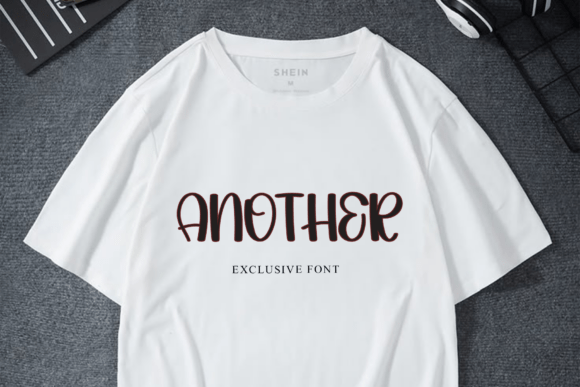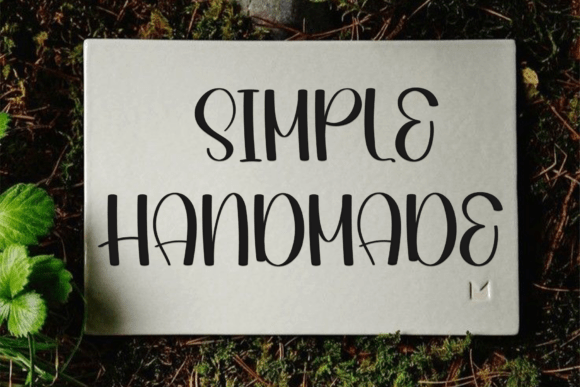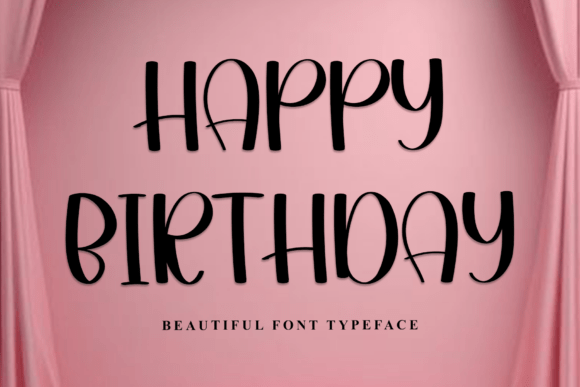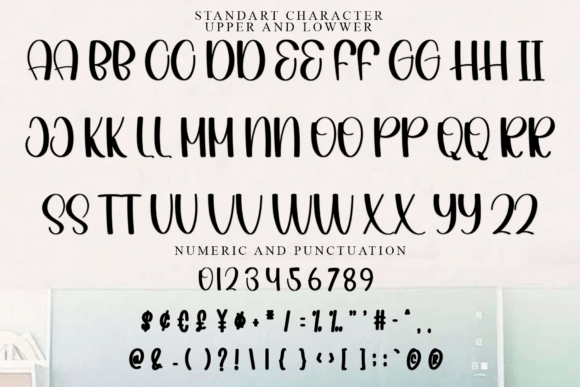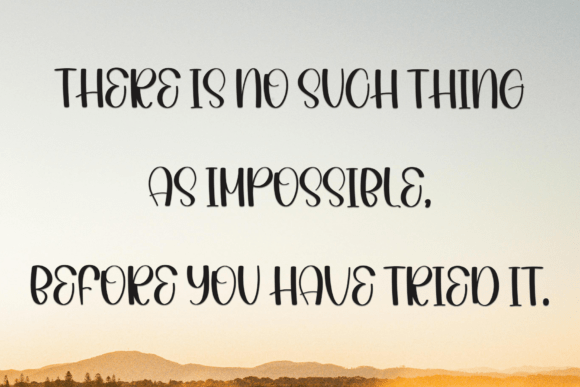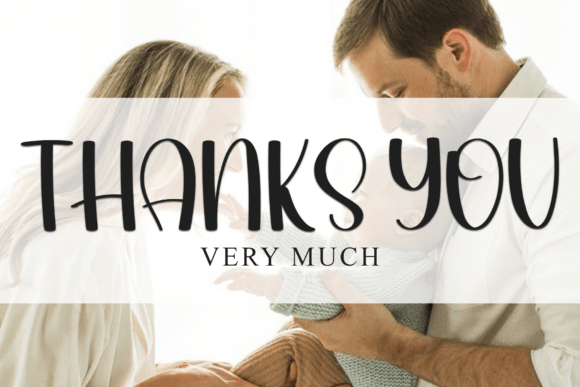
Discover the Timeless Charm of a Beloved Font
Enter the Beloved Mother Font, a masterfully crafted handwritten font that combines classic calligraphic influences with a fresh, contemporary feel. With its elegant curves and delicate flourishes, this font is sure to become a true favorite among designers. Whether you’re working on a wedding invitation, a branding project, or a personal blog, the Beloved Mother Font is the perfect choice to bring your vision to life.
Beloved Mother Font Key Features
- Font Family: Beloved Mother is a script font family that includes 6 styles (Regular, Italic, Bold, Bold Italic, Outline, and Fill).
- Language Support: Beloved Mother supports a wide range of languages, including Latin-based languages, Greek, and Cyrillic.
- Unique Characteristics: The font features a warm, elegant, and cursive design, making it perfect for creating beautiful and romantic text effects, such as wedding invitations, love letters, and greeting cards.
Designer Review: Beloved Mother Font
As a designer, I was excited to dive into the Beloved Mother Font, hoping to find a warm and inviting typeface that would bring a sense of comfort to my designs. Overall, I was somewhat satisfied with my experience.
- The Beloved Mother Font has a beautiful, flowing script that’s perfect for creating a sense of elegance and sophistication.
- The font’s rounded edges and subtle flourishes add a touch of whimsy and playfulness, making it ideal for children’s book illustrations or other projects that require a lighthearted tone.
- The font’s versatility allows it to work well in a variety of contexts, from wedding invitations to family newsletters.
- The font’s script style can sometimes feel a bit too loose and uneven, which may make it difficult to read at small sizes.
- The font’s range of weights and styles is limited, which may make it less suitable for complex designs or projects that require a lot of font pairing.
- The font’s aesthetic can feel a bit too generic or clichéd, which may make it harder to stand out in a crowded design landscape.
Overall, the Beloved Mother Font is a solid choice for designers looking for a warm and inviting typeface. While it may not be the most versatile or innovative font on the market, it’s a great option for projects that require a sense of comfort and familiarity.
For best results, use the Beloved Mother Font with a serif or script font to create a beautiful contrast.
The Beloved Mother Font is perfect for:
Baby shower invitations and decorations
Family business logos and branding
Great Vibes is a modern, elegant script font that is perfect for designers who want a clean and sophisticated look. It is a great alternative to Beloved Mother Font for those who want a more minimalist approach without sacrificing elegance.
Q: Are there any specific font size or style recommendations for using Beloved Mother Font?
For optimal readability, we recommend using the Beloved Mother Font at font sizes between 12pt and 24pt. Additionally, the font’s default style is a clean and modern sans-serif design, but you can also use the font’s bold and italic styles to add emphasis and visual interest to your designs.